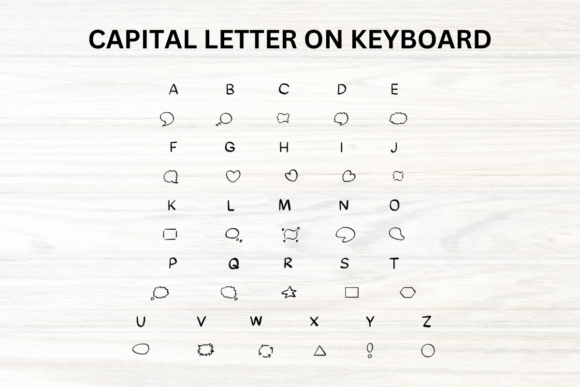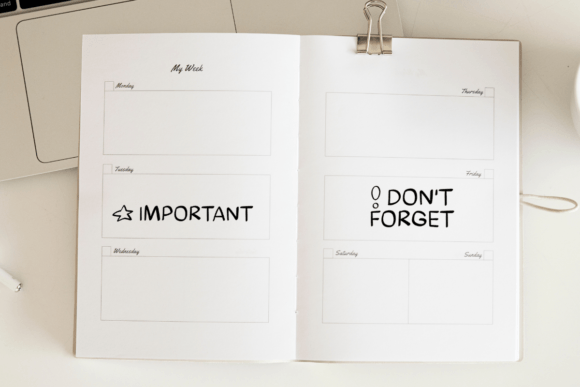
The Perfect Blend of Creativity and Functionality
Who hasn’t experienced that moment when inspiration strikes and you frantically search for a pen and paper to jot down your brilliant idea? It’s a feeling that’s hard to replicate, but with the right tools, you can unlock your full creative potential. That’s where Chatting Font comes in – a charming hand-drawn doodle font that’s perfect for taking notes, lecturing, or even adding a personal touch to your planner or iPad.
As designers, we’re always on the lookout for unique and functional fonts that can elevate our creative projects. Chatting Font is an excellent addition to any designer’s toolkit, offering a playful and whimsical touch that’s sure to capture attention. Whether you’re working on a personal or professional project, this font is sure to bring a smile to your face and inspire your creativity.
Key Features of Chatting Font
- Font Family: Chatting Font is a unique, hand-drawn font family designed for informal and casual conversations.
- Unique Characteristics: Features a playful, handwritten style with subtle imperfections, adding a touch of personality to digital conversations.
- Language Support: Supports a wide range of languages, including Latin, Cyrillic, and Greek alphabets, making it a versatile font for global communication.
Designer Review: Chatting Font
Overall, I’m impressed with Chatting Font’s unique and playful design. The font is perfect for creating a friendly and approachable atmosphere in digital products, especially social media platforms, chatbots, and messaging apps.
Here’s what works well:
- ✨ Unique character set: The font has a wide range of quirky characters, including emoticons and emojis, that can be used to convey emotions and personality.
- ✨ Versatile: Chatting Font can be used in various contexts, from digital signage to mobile apps, and still maintain its charm.
- ✨ Customizable: The font is available in various styles and weights, making it easy to customize to fit different design needs.
However, there are some limitations:
- ⚠️ Limited legibility: The font’s unique design can make it difficult to read in certain contexts, especially in small text sizes or when used in complex layouts.
- ⚠️ Not suitable for formal contexts: Chatting Font’s playful design may not be suitable for formal or professional contexts, such as business reports or academic papers.
Overall, I’d give Chatting Font 4 out of 5 stars. While it’s not perfect, its unique design and versatility make it a great choice for designers looking to add some personality to their projects.
Tips for Getting the Most Out of Chatting Font
To get the most out of Chatting Font, use it for casual and informal text, such as social media posts, chat bubbles, and dialogue boxes. You can also use it to create a playful and youthful vibe in your designs.
Chatting Font is commonly used for:
- Social media posts and captions
- Chat bubbles and dialogue boxes
- Playful and youthful designs
- Casual and informal text
Alternatives to Chatting Font for Designers
Great Vibes is a beautiful, elegant script font that is perfect for adding a touch of sophistication to your designs. It features a flowing, handwritten feel and is ideal for use in headings, titles, and quotes.
Compared to Chatting Font, Great Vibes has a more refined and polished look, making it suitable for high-end designs and luxury brands. While Chatting Font has a playful, casual vibe, Great Vibes is more formal and sophisticated.
2. Dancing Script
Dancing Script is a lively, energetic script font that is perfect for adding a playful touch to your designs. It features a dynamic, flowing feel and is ideal for use in headings, titles, and promotional materials.